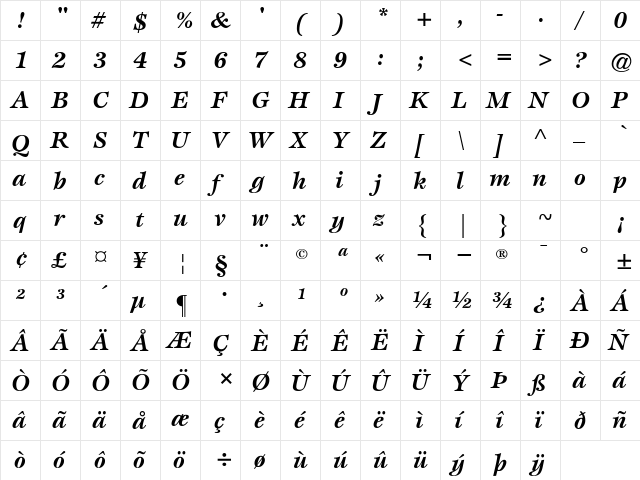
SerenaSSK BoldItalic Font Preview
SerenaSSK BoldItalic
SerenaSSK BoldItalic Font Details
Design Context for SerenaSSK Typeface
SerenaSSK takes a measured approach to typography — its balanced proportions and neutral character make it a reliable workhorse for both digital and print work. The dynamic lean of this cut emphasises speed and emphasis in any layout. The heavy weight commands attention and anchors typographic hierarchies.
Pro Tip: Use SerenaSSK for emphasis, pull quotes, and subheadings where its slanted energy can add rhythm to the layout.